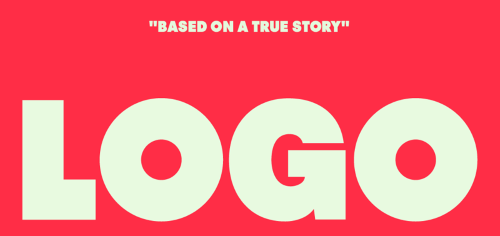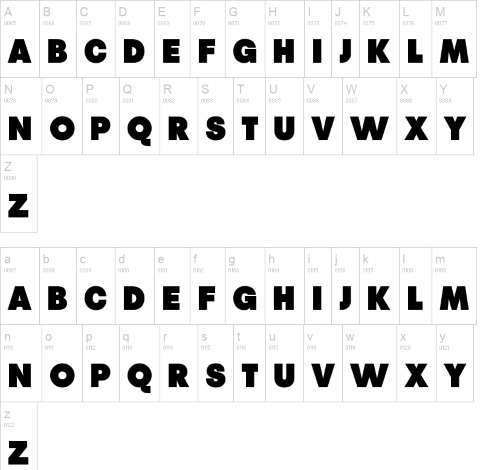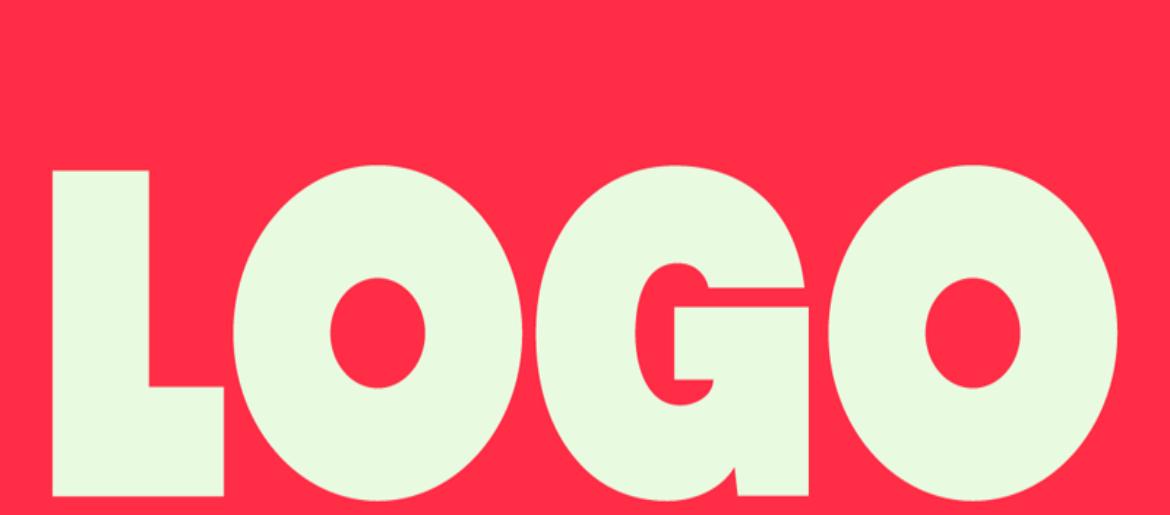
”The Logo Font” Font
“The Logo Font” typically refers to a clean, modern display typeface designed for strong branding and visual identity work. With bold shapes, smooth curves, and a highly polished structure, it delivers maximum clarity and impact. Ideal for logos, headlines, and minimalist layouts, it gives designs a sharp, professional, and contemporary presence.
➤ Font Name: The Logo Font
➤ Designer: Sven Pels
➤ Style: Sans serif